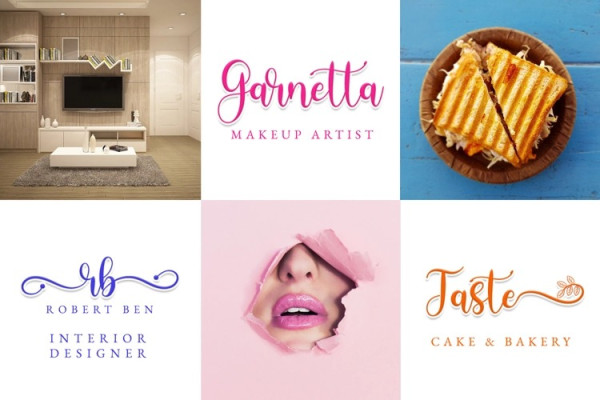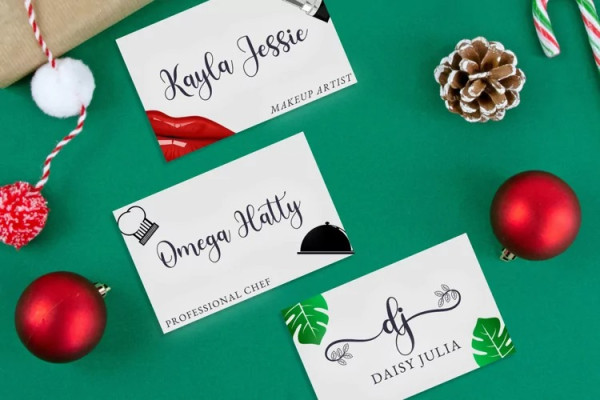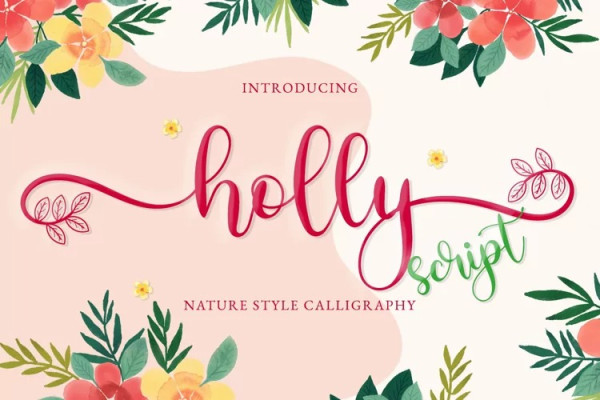
Holly Font
Holly Font is modern sweet calligraphy font. It has nature look with leaves front and back swashes. It is also versatile for any project, especially for the modern and sweet design.